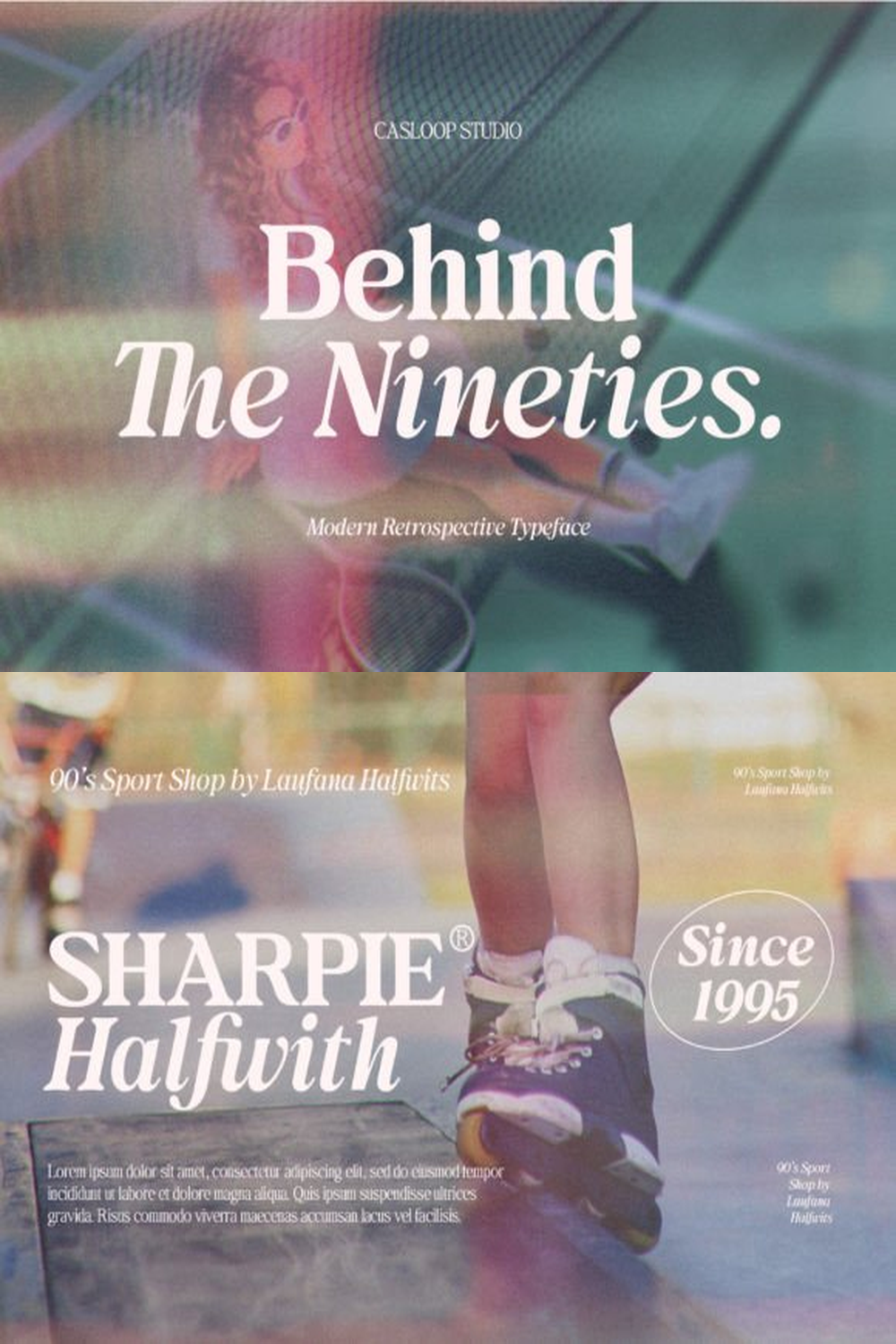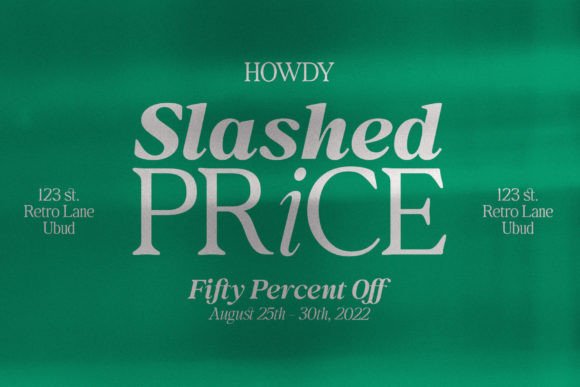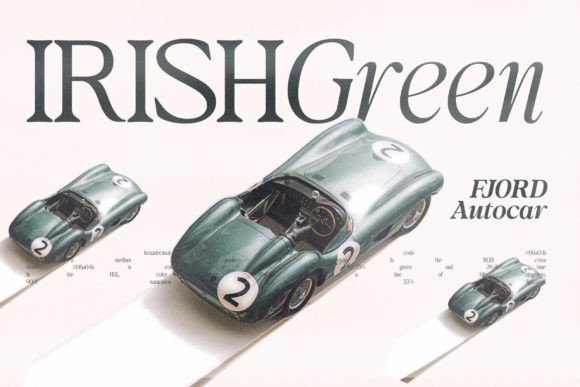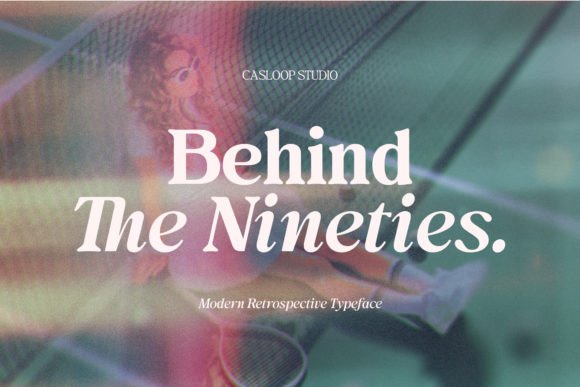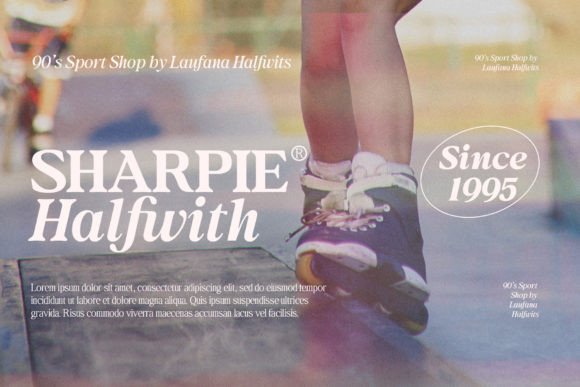
Behind the Nineties Font: A Retro Serif for Modern Branding
About the Behind the Nineties Font
Explore the possibilities with Behind the Nineties Font, a font that offers both beauty and functionality. Behind the Nineties is a classy and elegant serif font. Trendy and stylish, this font will elevate each of your creations.